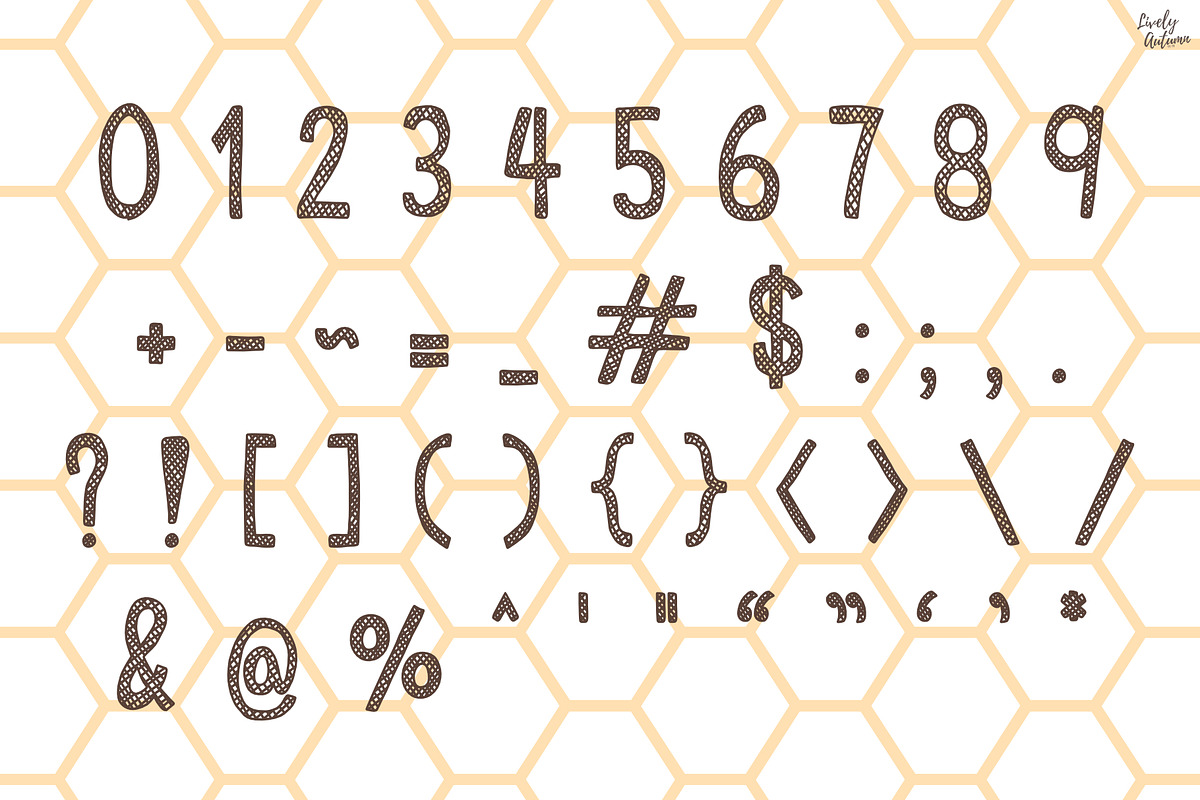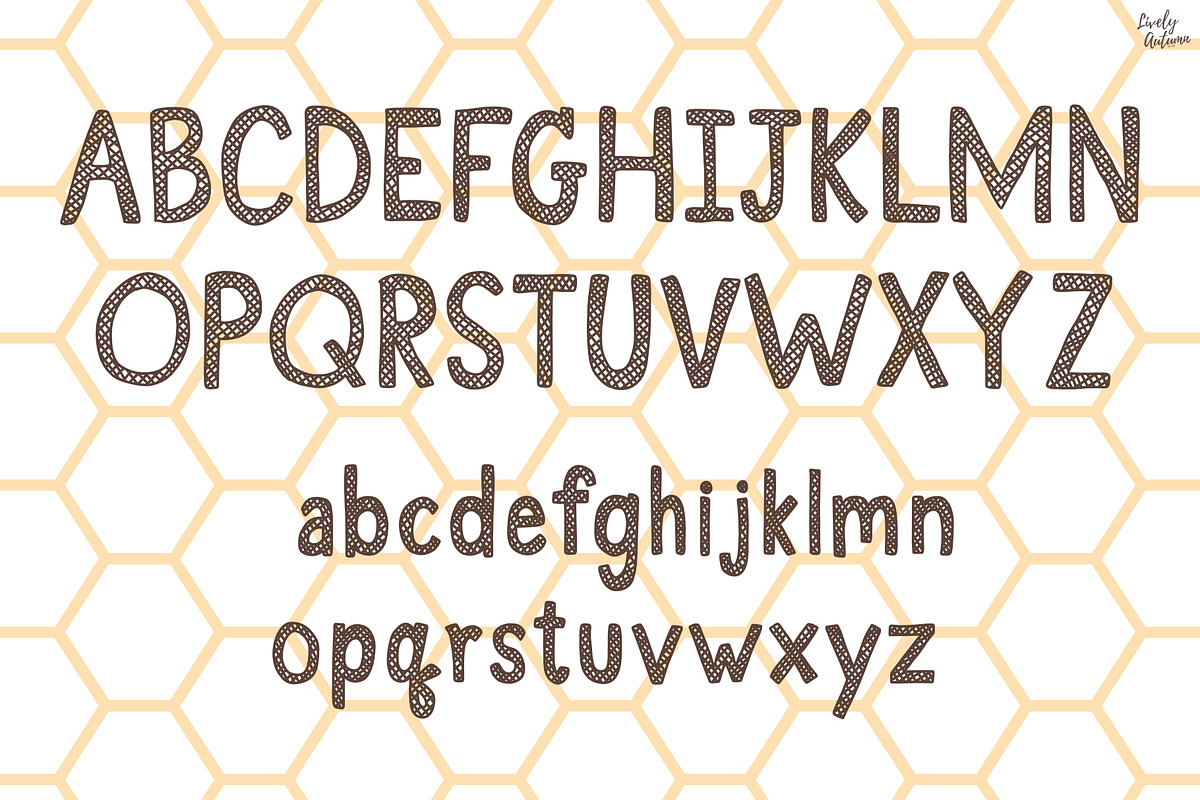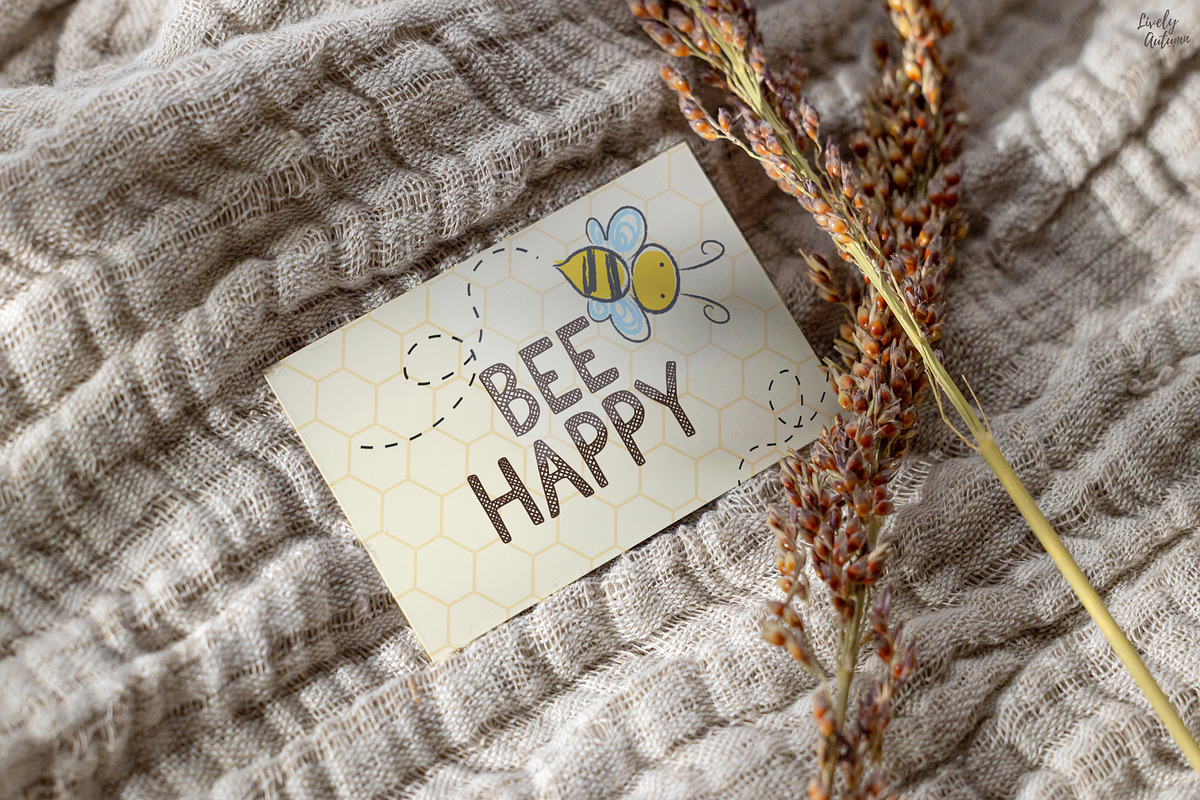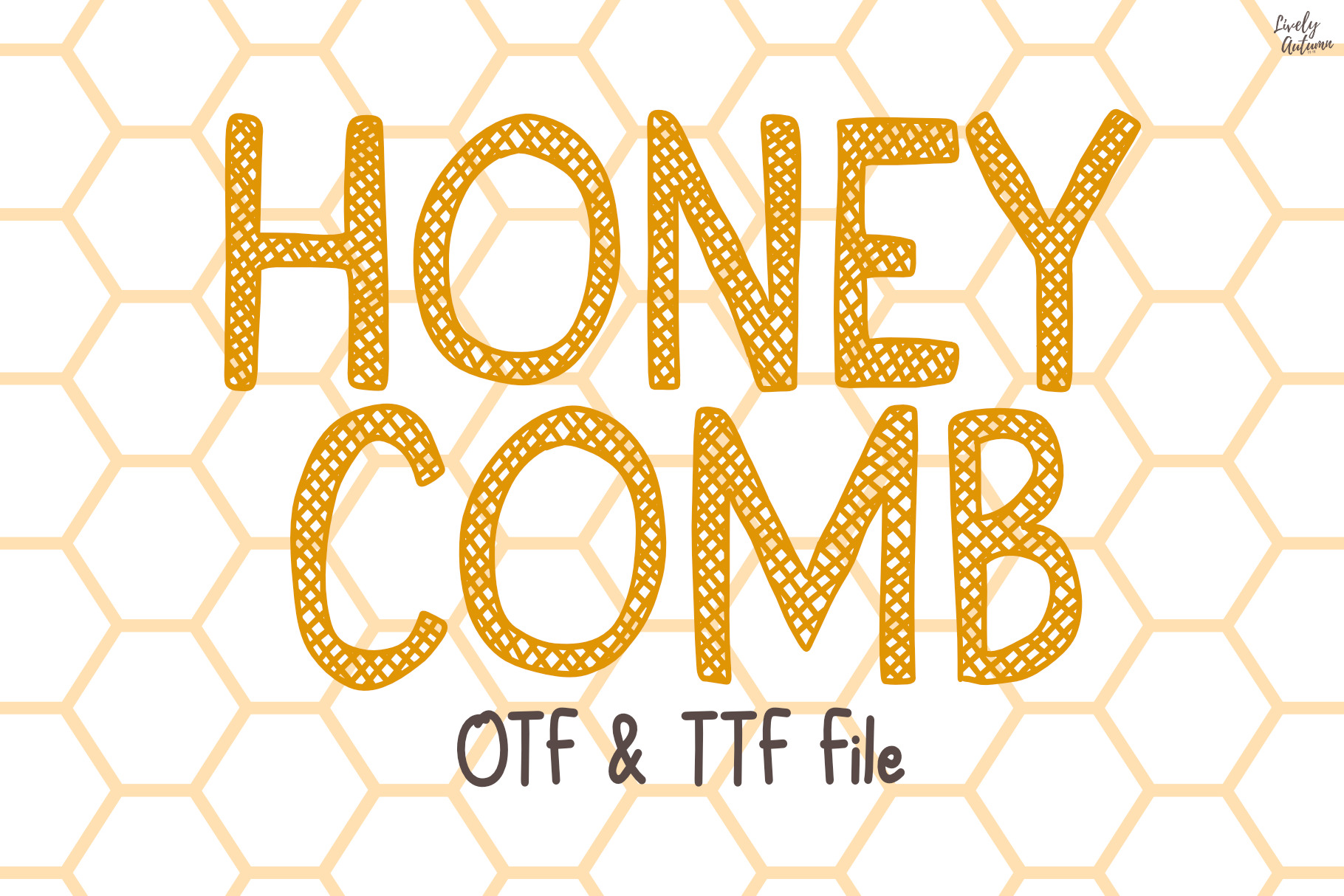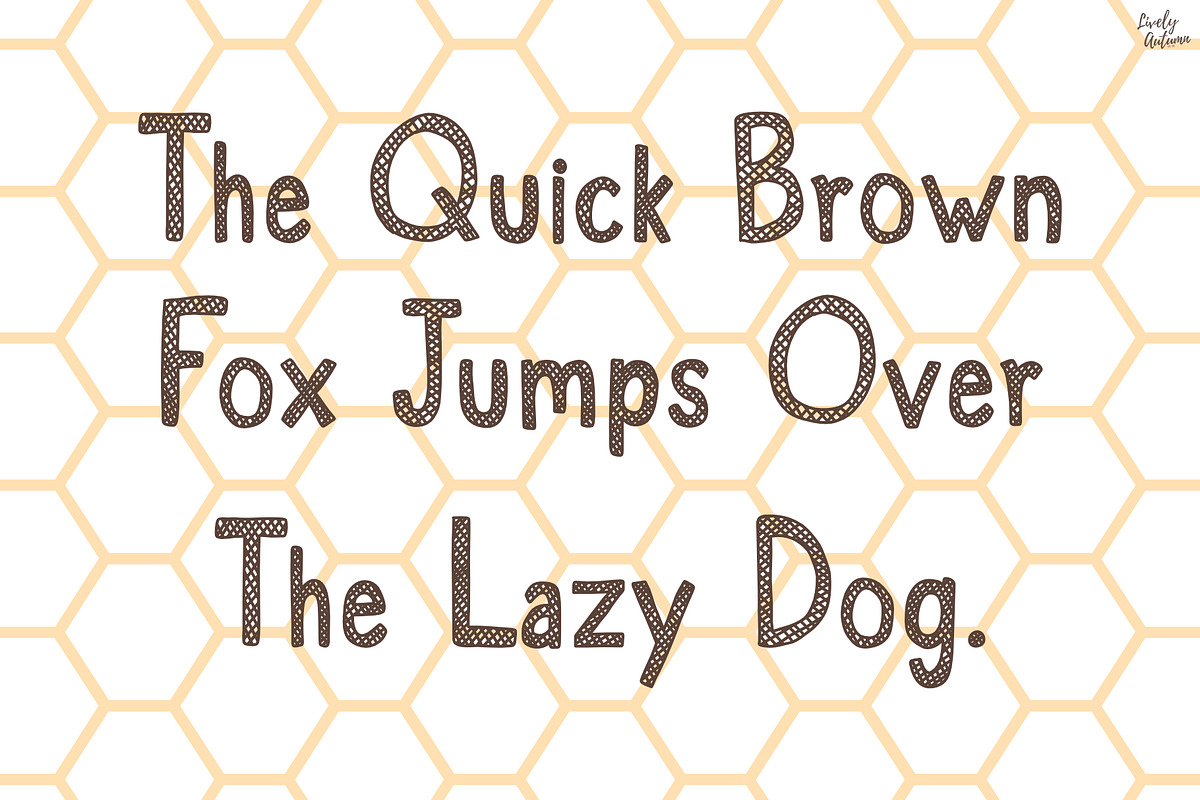
Honeycomb | Handwriting font
Honeycomb Font is a sans serif handwritten font with a diagonal tile pattern in each letter. Perfect for your personal projects and various projects. From invitations to posters, social media graphics, journals, greeting cards, and much more.
- Font includes: uppercase, lowercase, numbers, and punctuation.